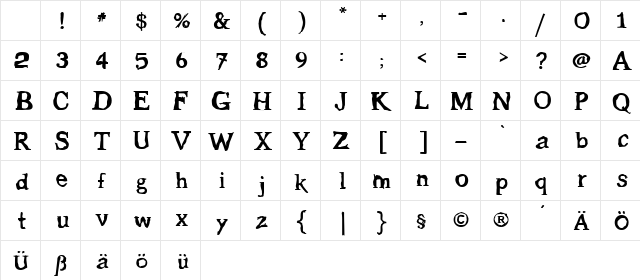
Complete Gleam Regular glyph index. Displaying only characters natively supported by Gleam Regular font.
Gleam is a composed and adaptable typeface that performs quietly and consistently across a wide range of design contexts.